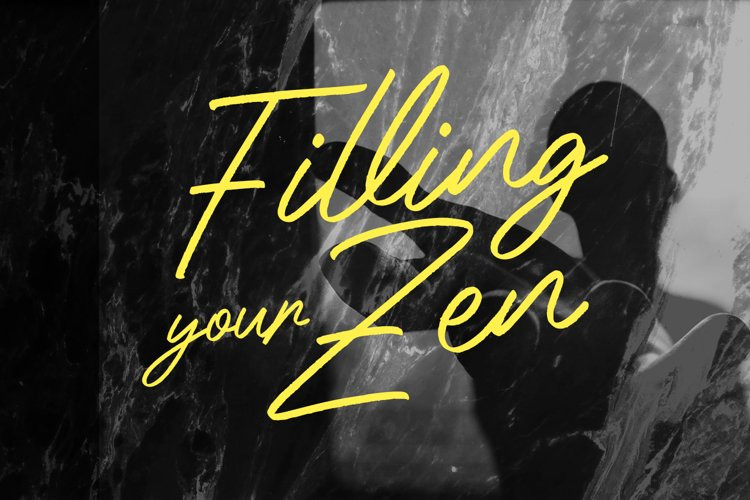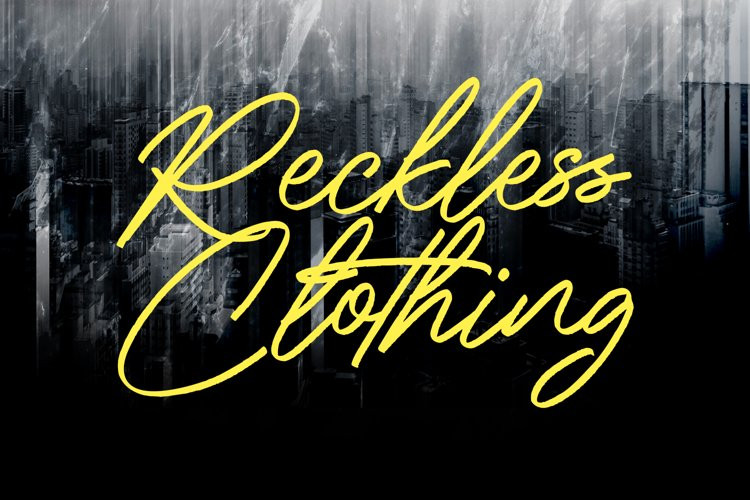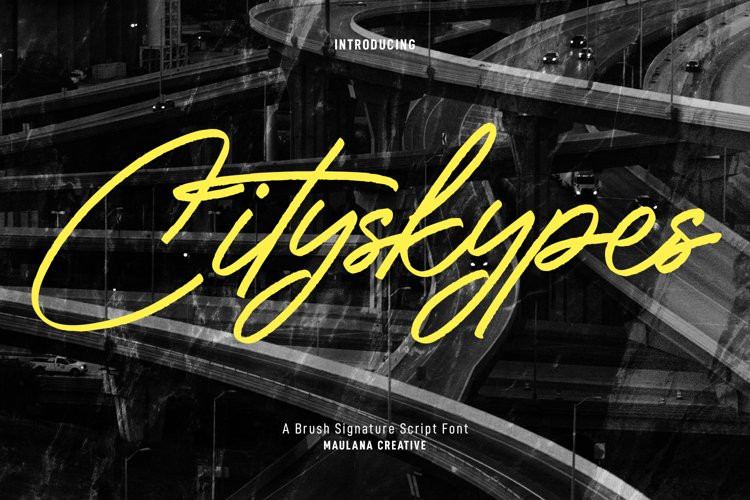
Cityskypes Font
Cityskypes FontCityskypes is a fancy signature script font. With regular rough stroke, fun character with a bit of ligatures and alternates. To give you an extra creative work. Cityskypes font support multilingual more than 100+ language. This font is good for logo design, Social media, Movie Titles, Books Titles, a short text even a long text letter and good for your secondary text font with sans or serif. Make a stunning work with Cityskypes font.